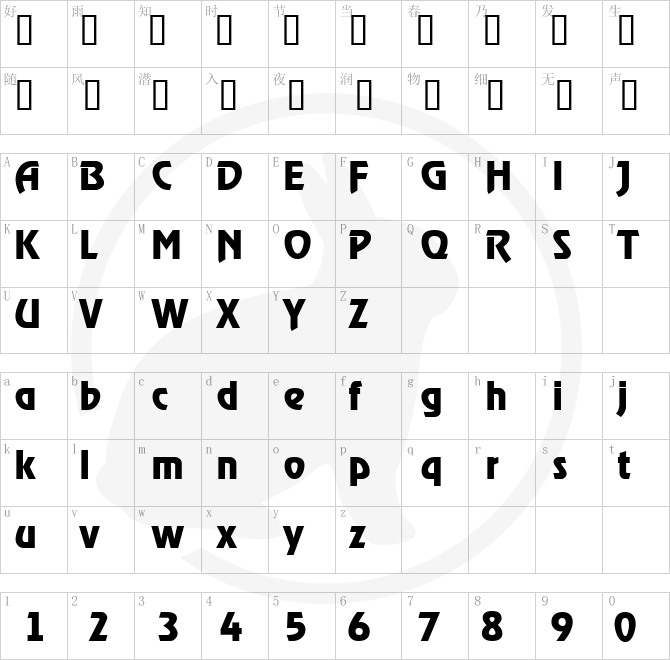
- Font Name:Xanadau
Xanadau-Black.ttf is a very beautiful artistic font, Xanadau-Black.ttf is widely used in the design and printing of various books and pictures,Xanadau-Black.ttf has a strong visual impact,Xanadau-Black.ttf is a commonly used font in newspapers, magazines and books, and is used in posters, e-commerce Poster design, store design, logo design, font design and other fields.Xanadau-Black.